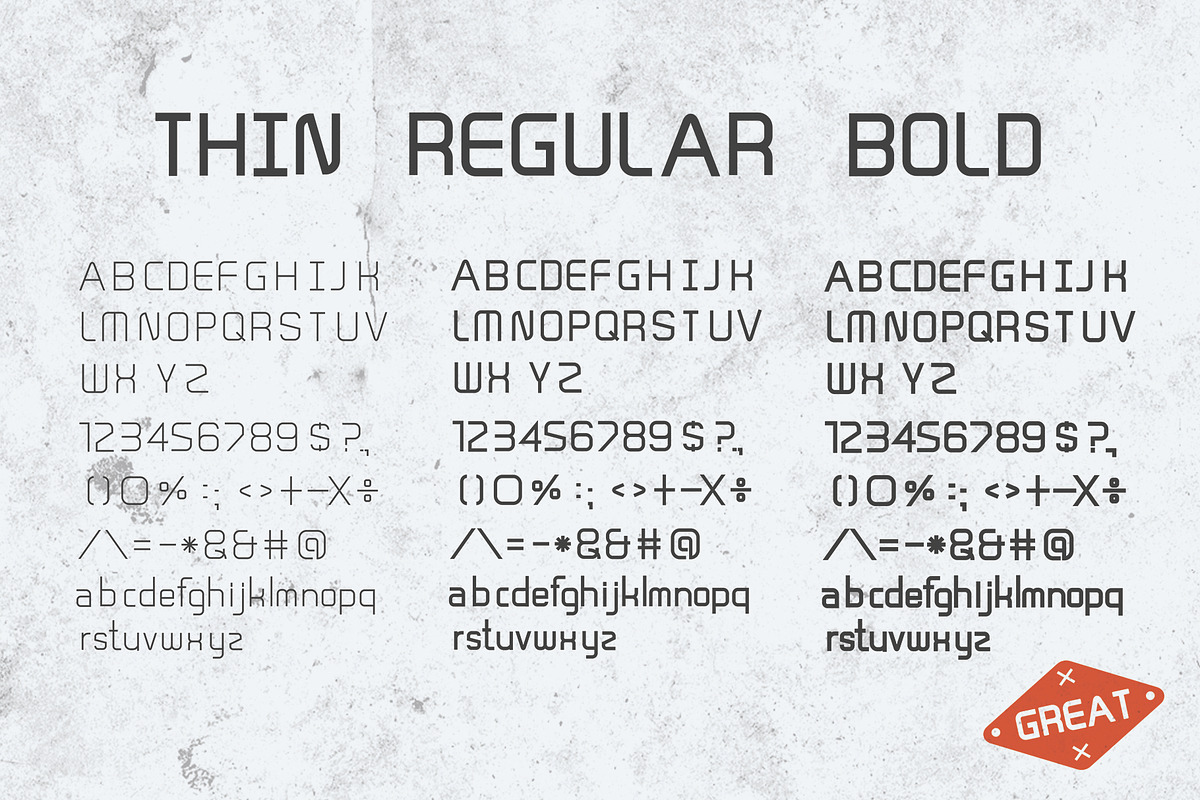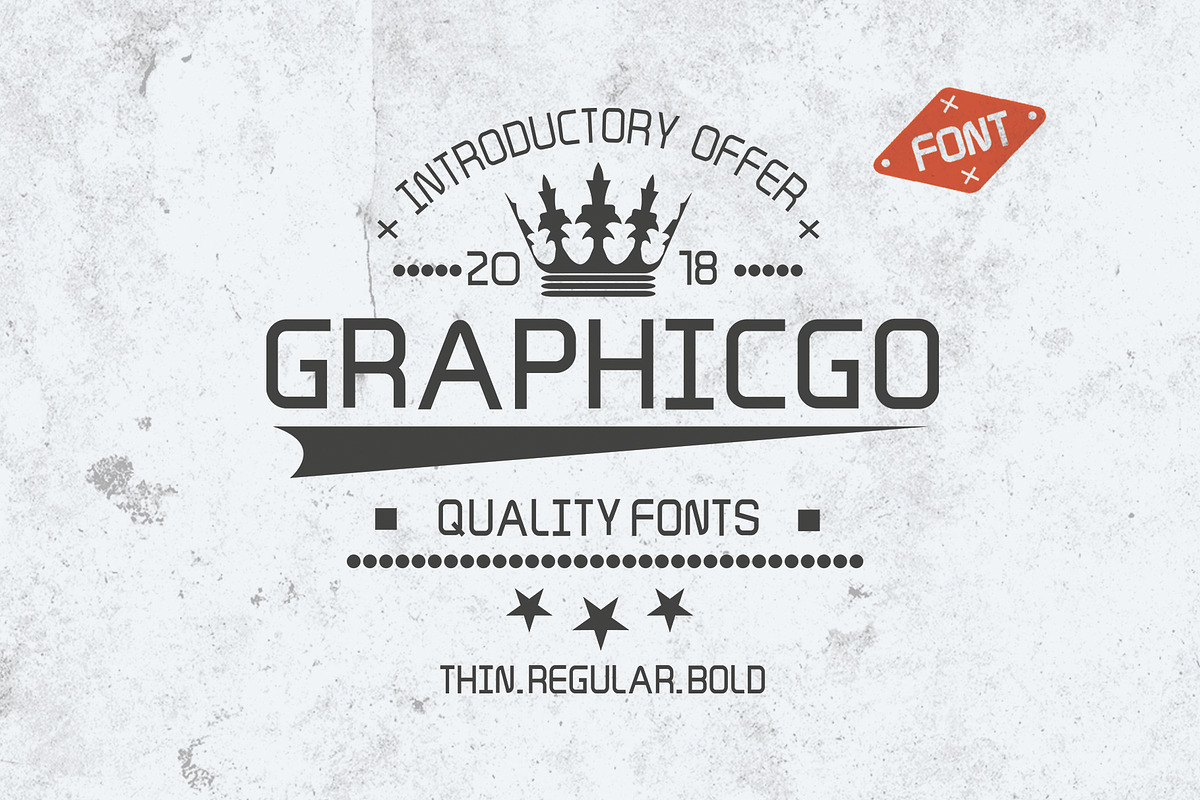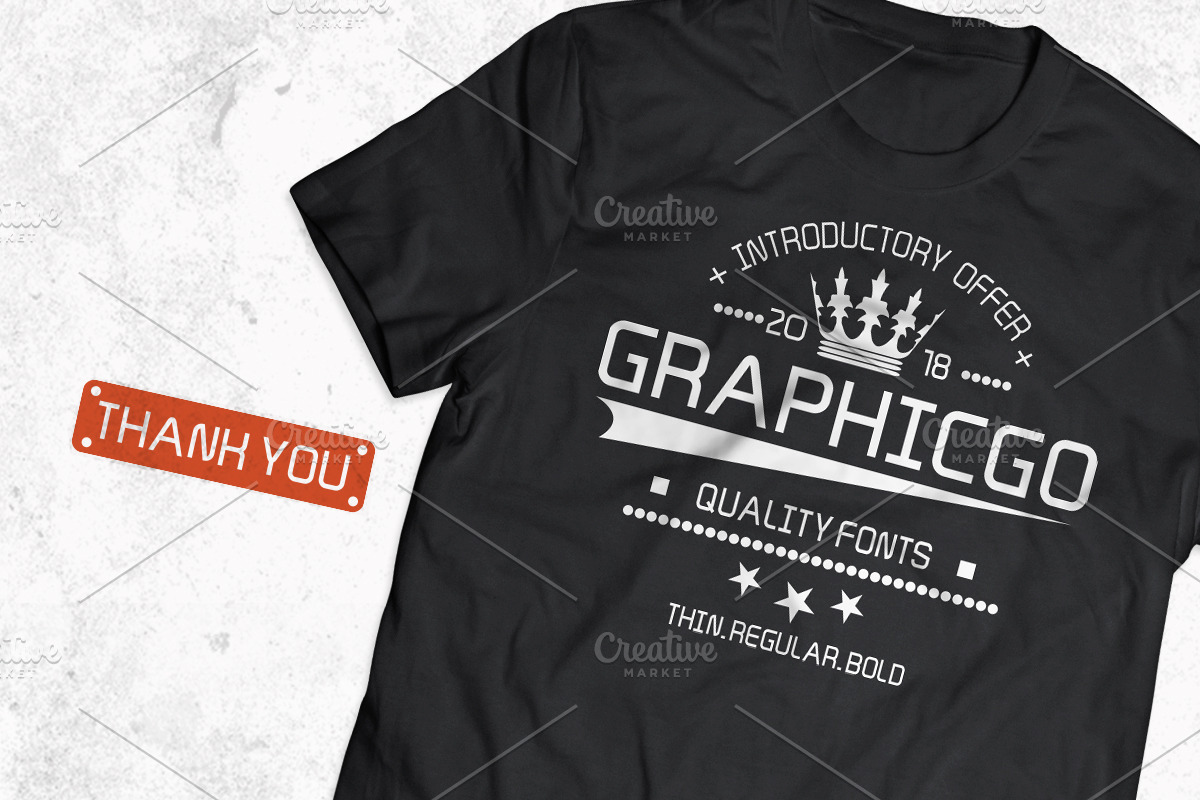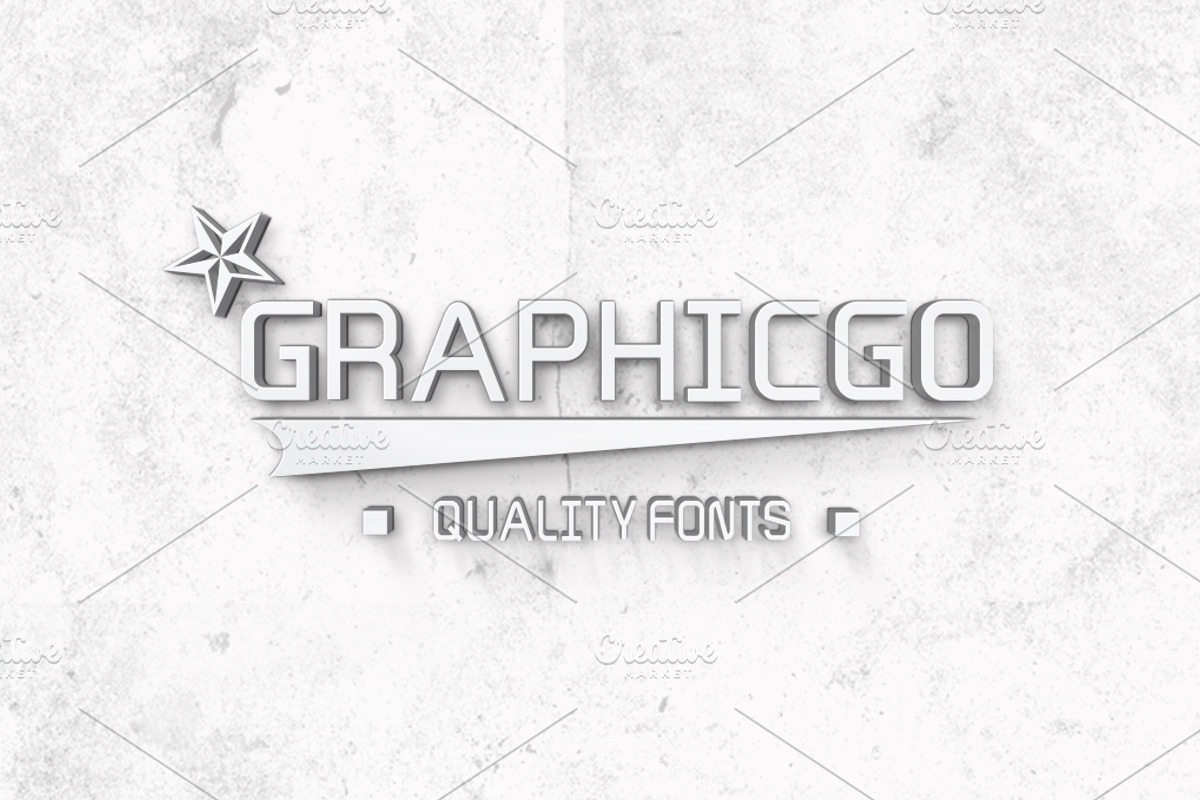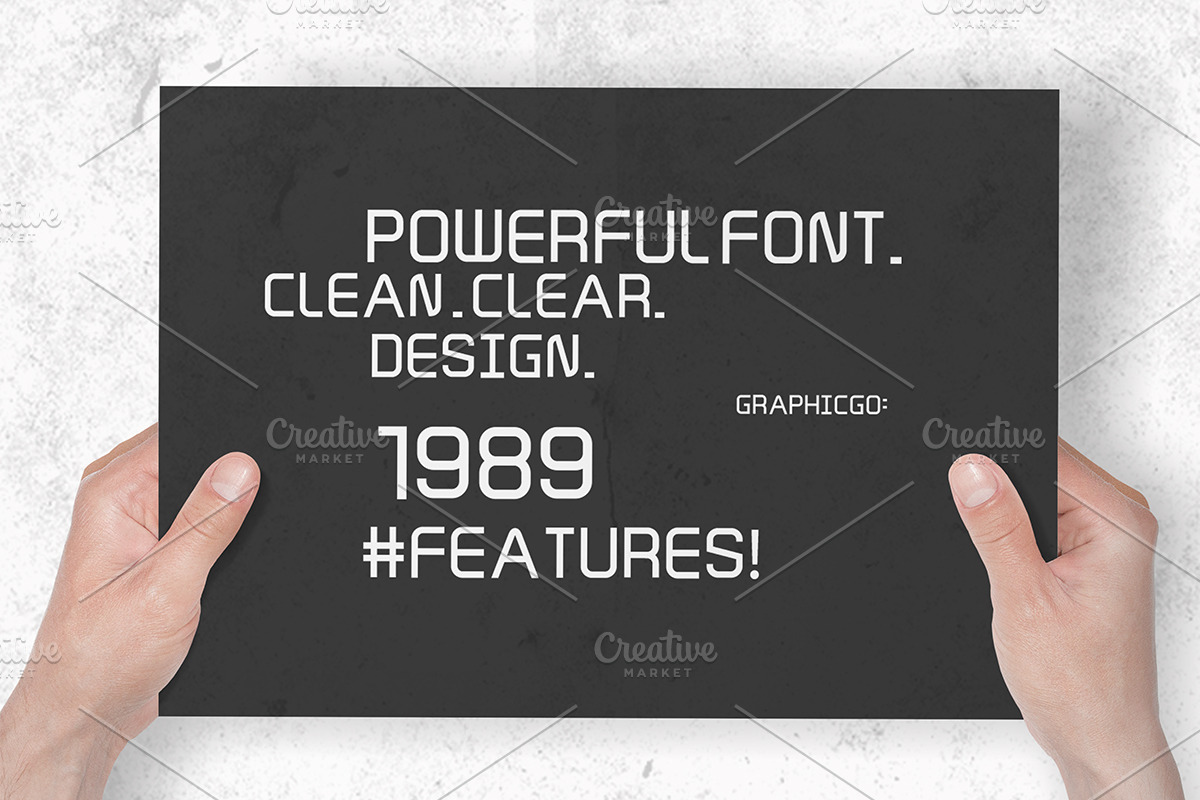
Graphicgo Fonts
Graphicgo Fonts is simple but strong letterforms that feel little vintage and retro. This font can be used and perfect for logo, poster, t- shirt, signage, billboard or anything that look retro and vintage projects. It comes with
Uppercase and Lowercase
Graphicgo Fonts by Graphicgo fits naturally into Branding, posters, packaging, typography.